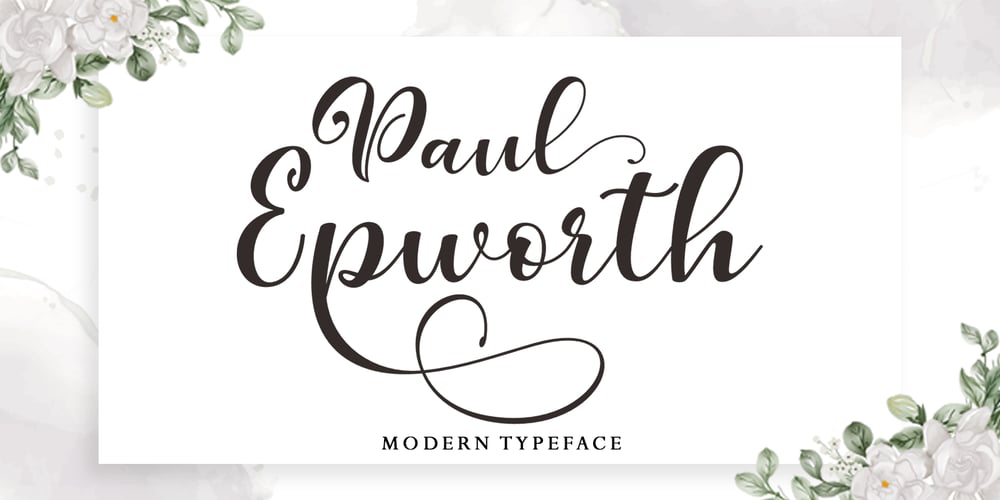
Paul Epworth Font Family was designed by Imam Muhajir and published by Straight.Co. Paul Epworth contains 1 styles and family package options. Paul Epworth is beautiful and lovely script font with many alternative styles, ligatures, swash and multilingual glyphs.Paul Epworth can be used for wide ranges of application, such as wedding design, logo, poster, name card, invitations, social media posts, and others.+ PUA-Encoded+ Can be used in any software, like AdobePhotoshop, Illustrator, even Microsoft Word, PowerPoint and others+ Multilingual glyphs.Thank You